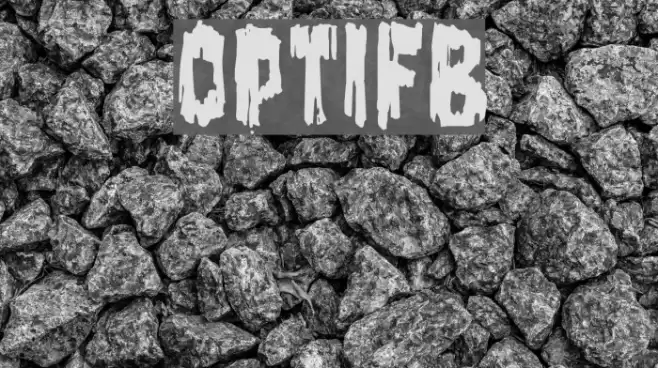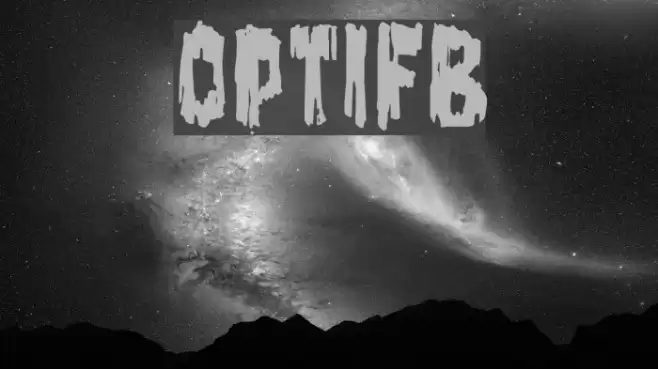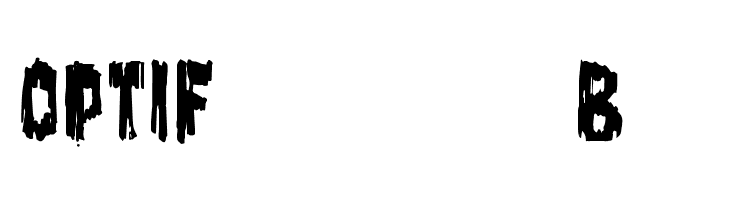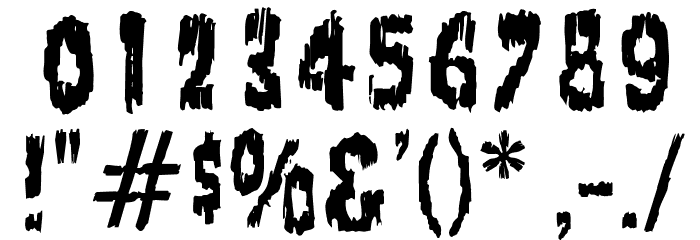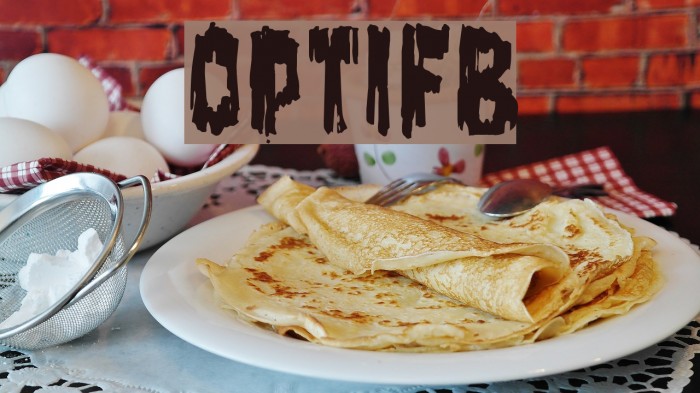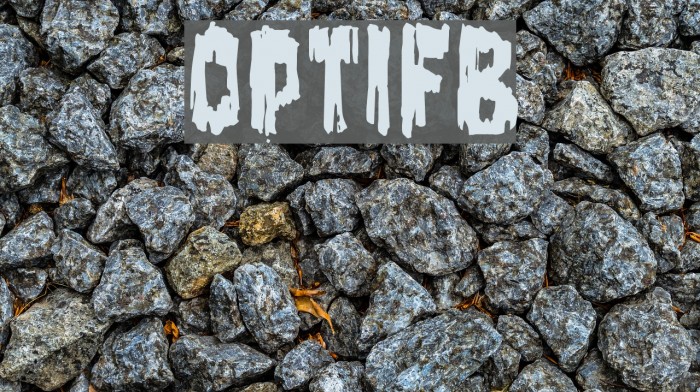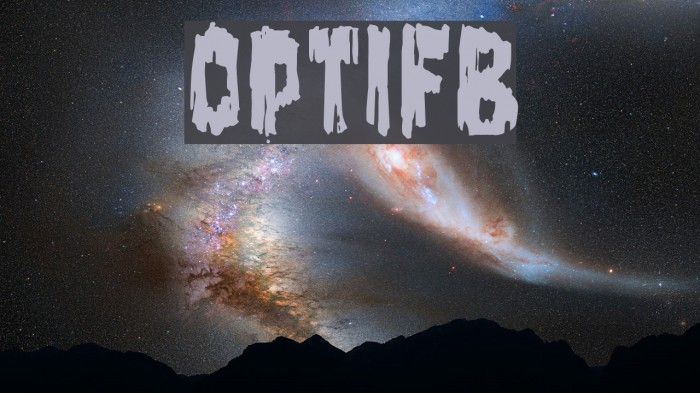
OPTIFrankensteinsBride Font
OPTIFrankensteinsBride Description
This font features a bold and jagged design, reminiscent of classic horror themes. Each character appears to be distressed or eroded, giving it a rugged and eerie appearance. The uppercase letters are particularly striking, with uneven edges and a sense of movement. The numbers and special characters maintain the same distressed style, ensuring consistency across all glyphs. This font is ideal for creating a spooky or unsettling atmosphere, making it perfect for Halloween-themed projects or any design that requires a touch of the macabre. Its unique style captures attention and evokes a sense of mystery and intrigue.
A bold, jagged font with a distressed, horror-themed design from Uncategorized fonts.
- Proposed Projects: Ideal for Halloween invitations, horror movie posters, haunted house flyers, and spooky event signage.